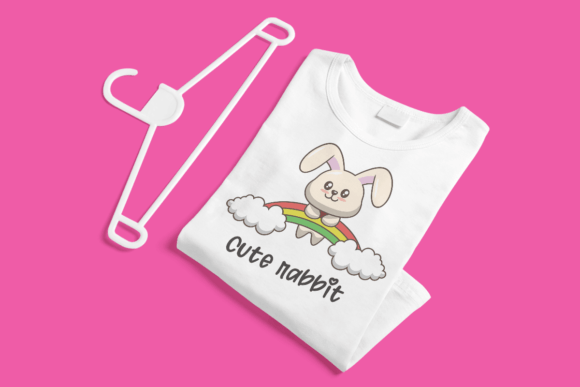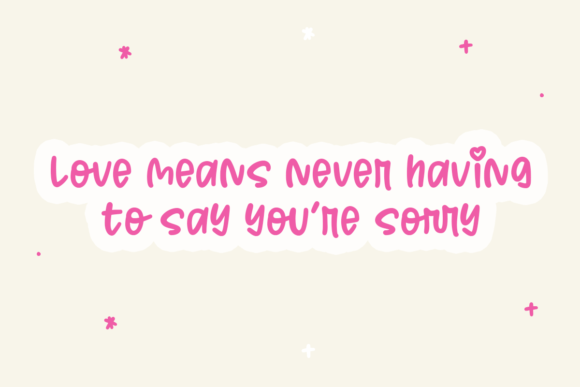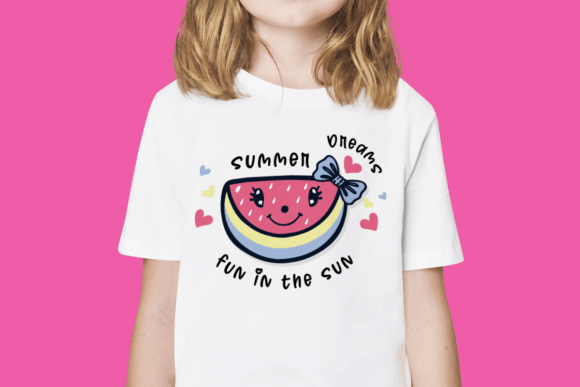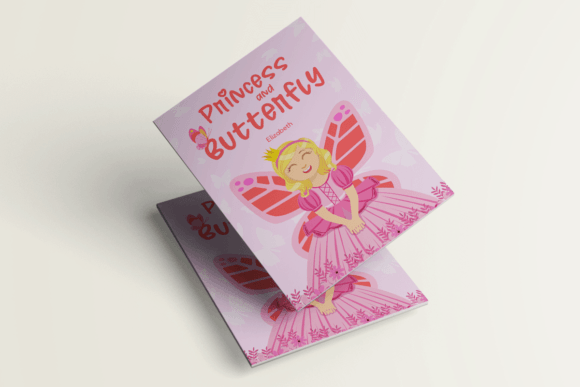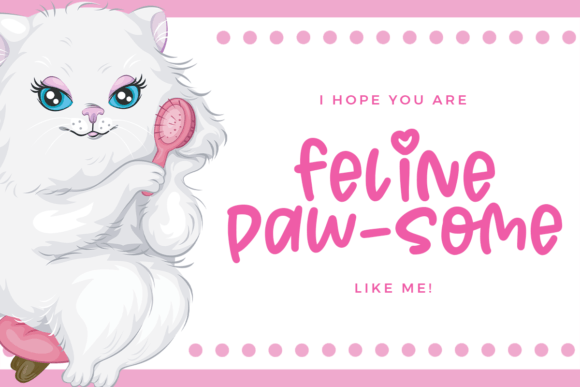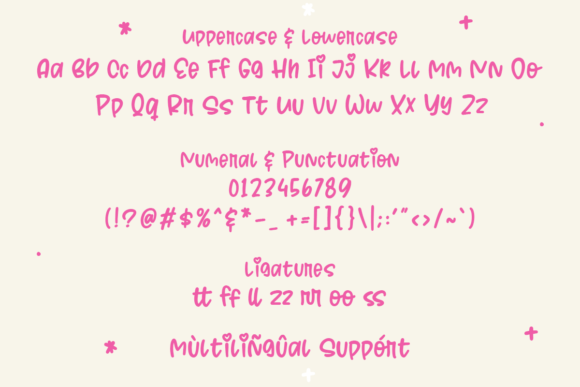
Introduction to Opendoor Font
Have you ever stared at a blank canvas, eager to bring a creative project to life, only to be held back by the perfect font? The blank page stares back, taunting you to find the perfect match. This is where the Opendoor Font comes in – a fun and whimsical paintbrush display font that’s sure to add a touch of magic to your designs.
Perfect for kid-themed designs, especially when paired with bright colors, the Opendoor Font is a valuable resource for designers. Its wide character set also makes it an excellent choice for logos, prints, and other design projects. With its high-quality design and PUA encoding, accessing all of its amazing glyphs and ligatures is a breeze, making it a must-have design resource for any creative project.
Key Features of Opendoor Font
- High-quality design resource ideal for creative projects and presentations, offering a unique and modern aesthetic.
- Designed to be versatile, the Opendoor Font is perfect for use in logos, headings, and body text, adding a touch of sophistication to any creative project.
- Easy to customize and manipulate, the font’s unique characteristics make it an excellent choice for designers seeking a distinctive look.
Honest Review: Opendoor Font
What works well: ✨ The Opendoor Font is clean, modern, and versatile, making it suitable for a wide range of design applications. It’s also free to download, which is a huge plus for designers on a budget. The transparent background option is a nice touch, allowing me to easily overlay the font on various backgrounds.
What doesn’t: ⚠️ While the Opendoor Font is a great addition to any design library, it’s not without its limitations. The font family is relatively small, with only a few weights and styles available. This might limit its use in more complex design projects.
Overall, I’m impressed with the Opendoor Font. Its clean design and free download make it a valuable resource for designers. While it may not be the most comprehensive font family, it’s a great starting point for creative projects.
Pros:
- Modern and clean design
Cons:
- Small font family with limited weights and styles
Some common use cases for the Opendoor Font include creating invitations, flyers, and social media graphics. To get the most out of this font, experiment with different font sizes and styles, and use it in combination with other design elements to create a unique and eye-catching visual effect.